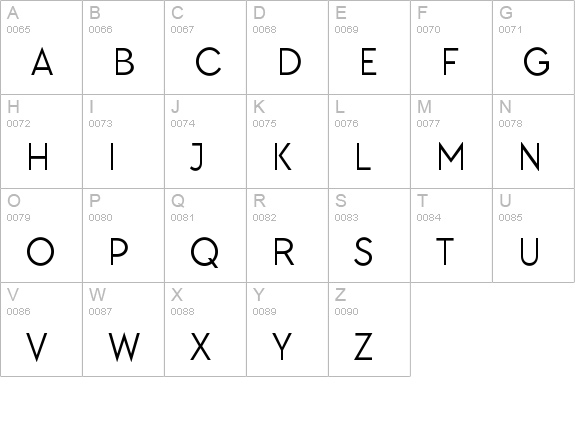
TT Chocolates Regular is the standard, neutral variant in the TT typeface family \xE2\x80\x94 well suited to general body text, paragraphs, and standard typographic work.
TT Chocolates Regular is a versatile and elegant font that exudes a sense of sophistication and charm. With its smooth curves and clean lines, this font is perfect for adding a touch of class to any design project. Whether you're creating a logo, poster, or website, TT Chocolates Regular is sure to make a lasting impression. The best part? TT Chocolates Regular is available for free download at FontsMarket.com. That's right, you can get your hands on this stunning font without spending a dime. So why wait? Add TT Chocolates Regular to your font collection today and start creating beautiful designs with ease.